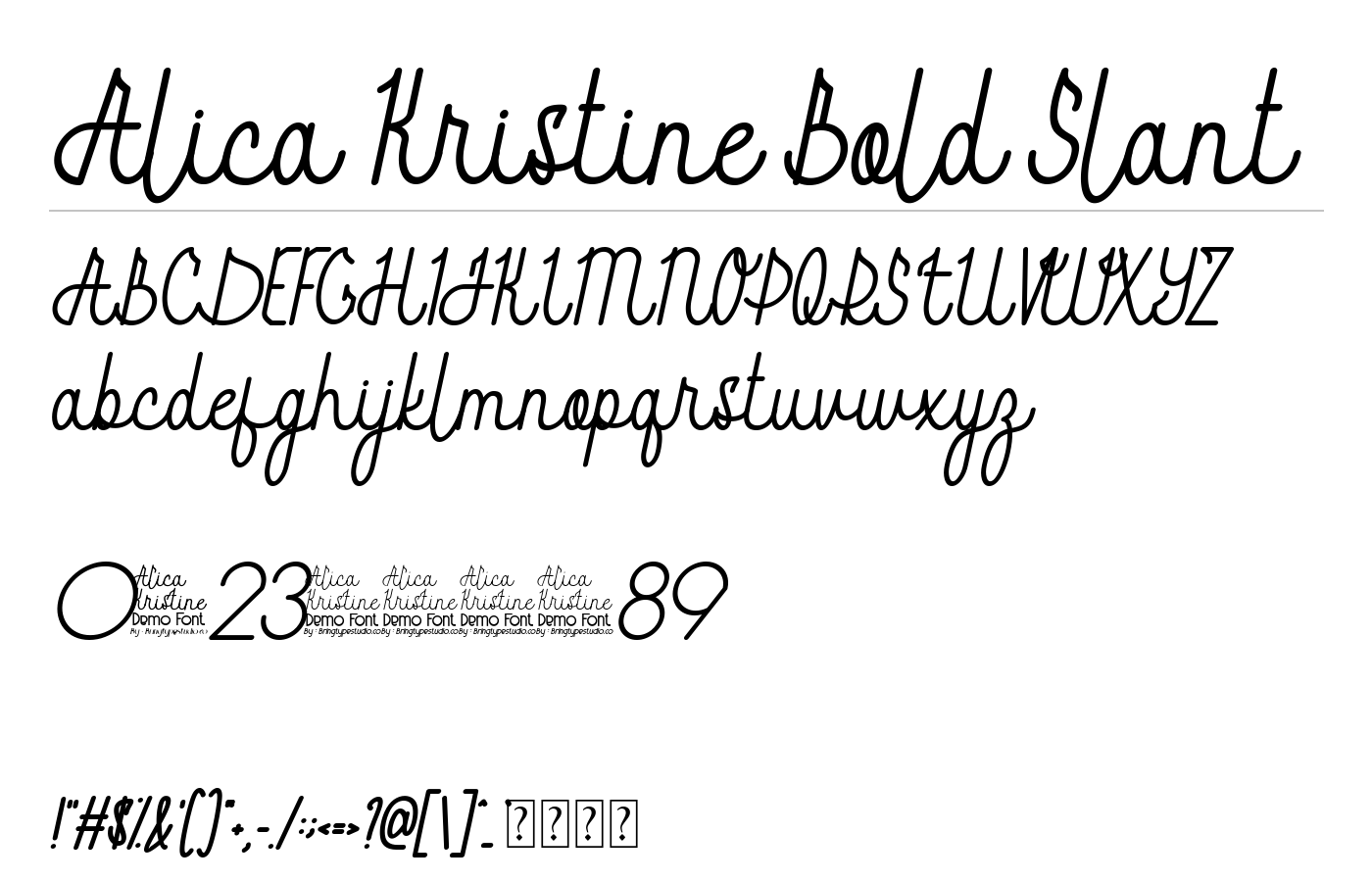
Alica Kristine Bold Slant is a lively and elegant script font featuring bold, slanted strokes with a smooth, handwritten style. Its playful yet refined letterforms with distinctive loops and curls make it perfect for creative branding, invitations, and stylish headlines where a personal, artistic touch is desired. This font works well in designs that seek a friendly but sophisticated vibe.
Alica Kristine Bold Slant Font
About Alica Kristine Bold Slant Font
| Font family | Alica Kristine Bold Slant Font |
| Designer | bringtypestudio.co |
| Font subfamily | Bold, Italic |